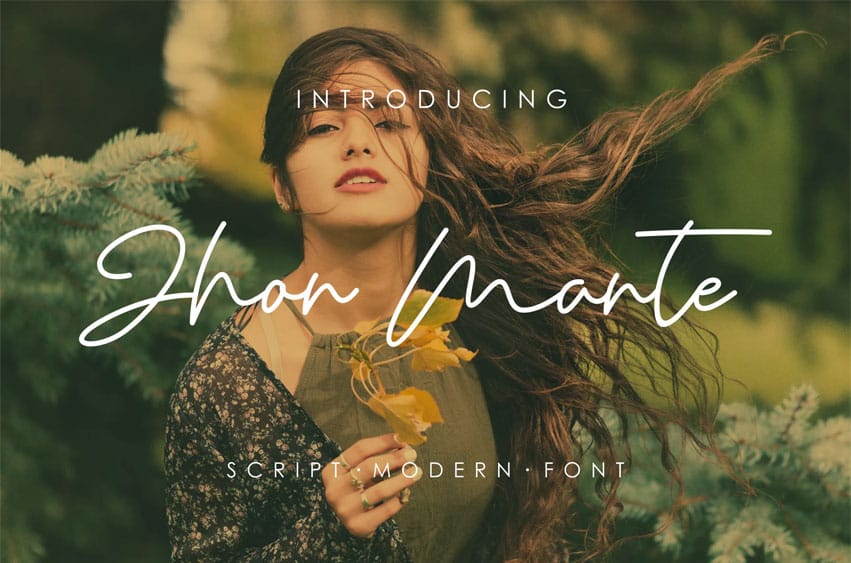
Jhon Mante Font Modern Font is a bold and authentic display font.
The font is suitable for any branding project like logo, t-shirt printing, Handwritten, and many more. outstanding in a wide range of contexts.